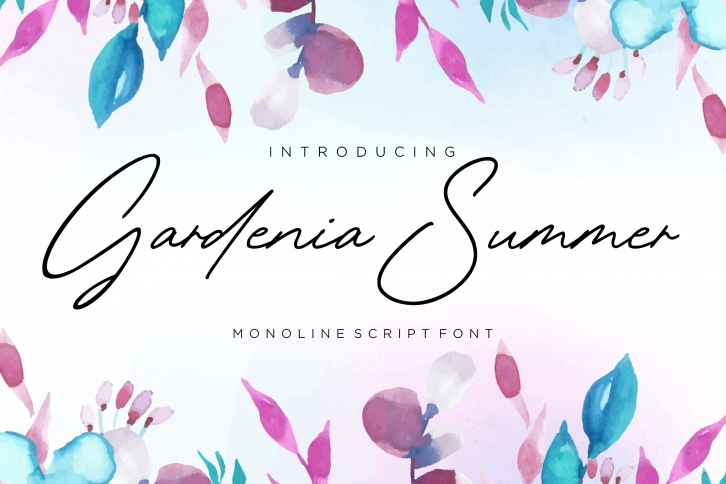
Proudly Present, Gardenia Summer Font.
Gardenia Summer is a monoline script font.
Gardenia Summer is perfect for product packaging, branding project, magazine, social media, weddings, or just used to express words above the background.